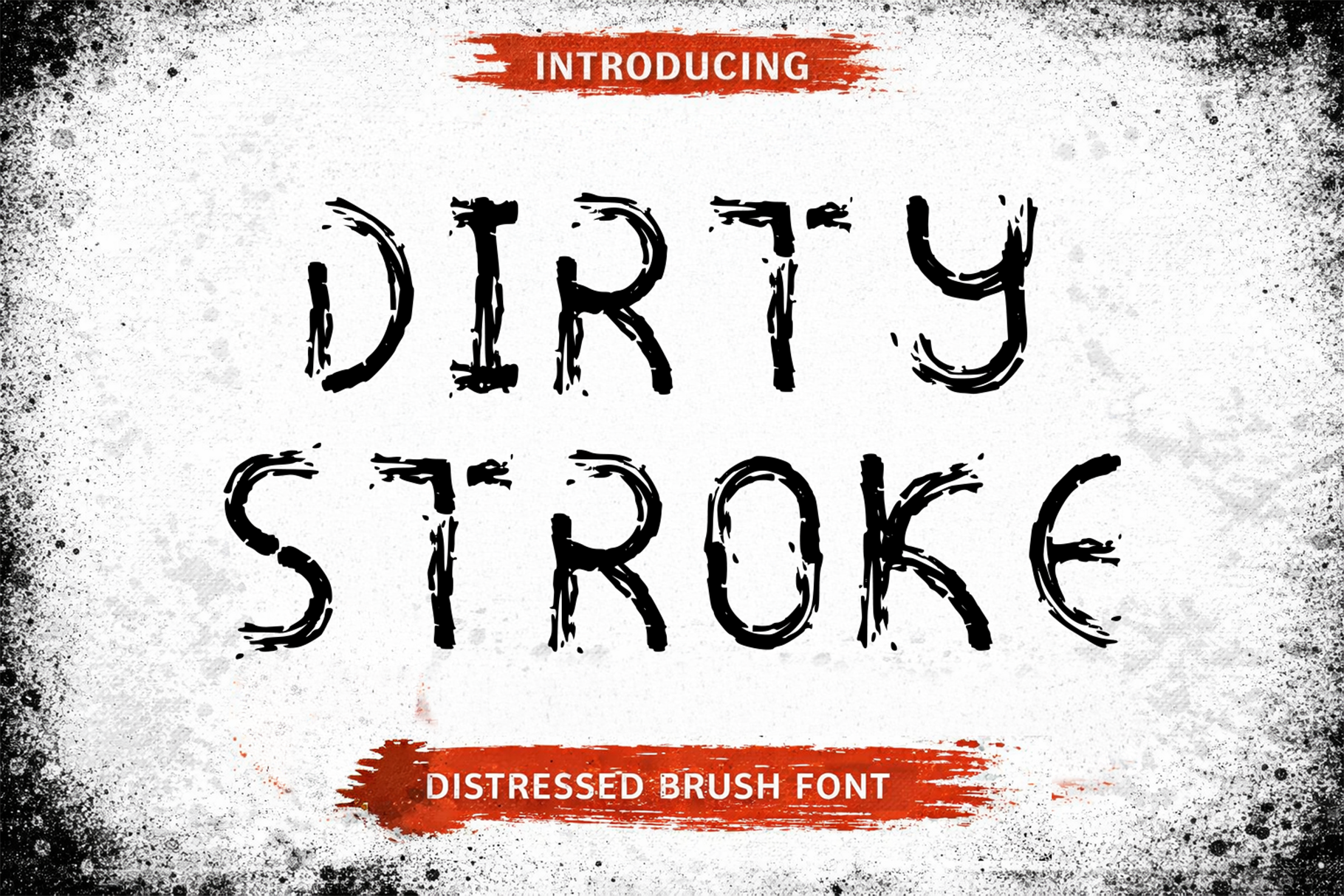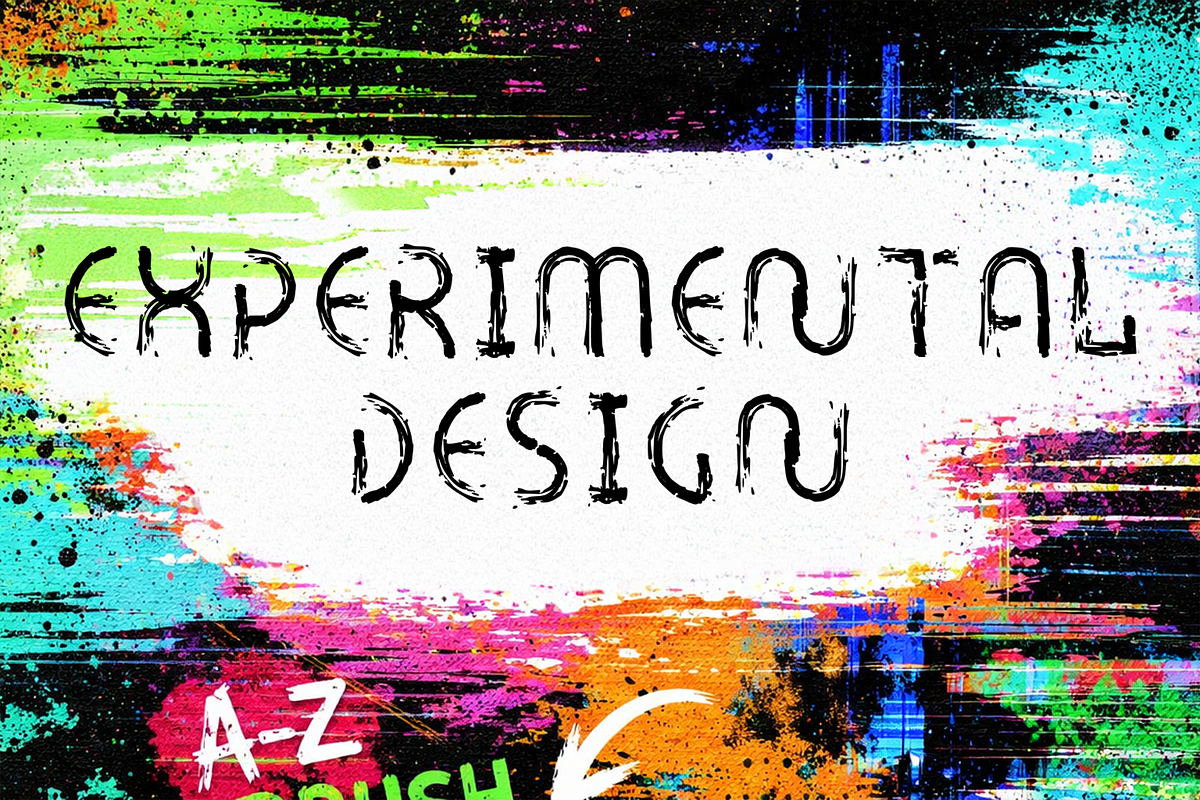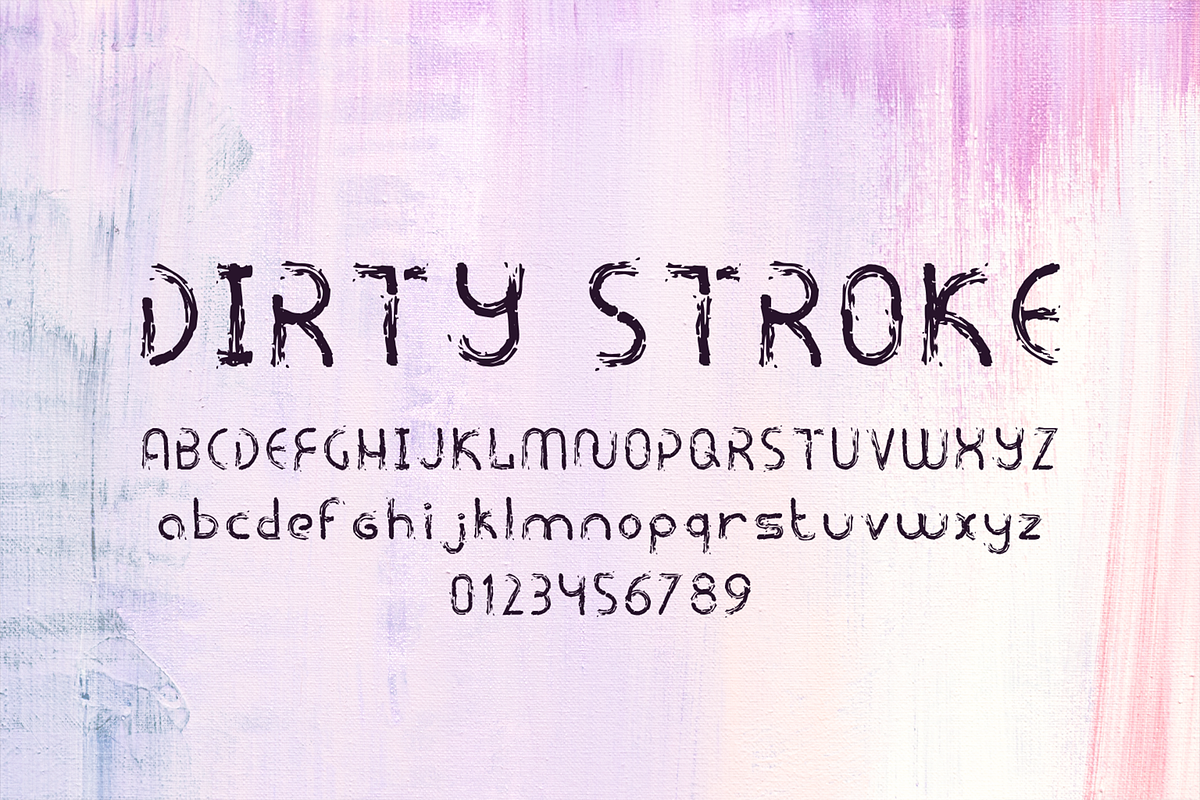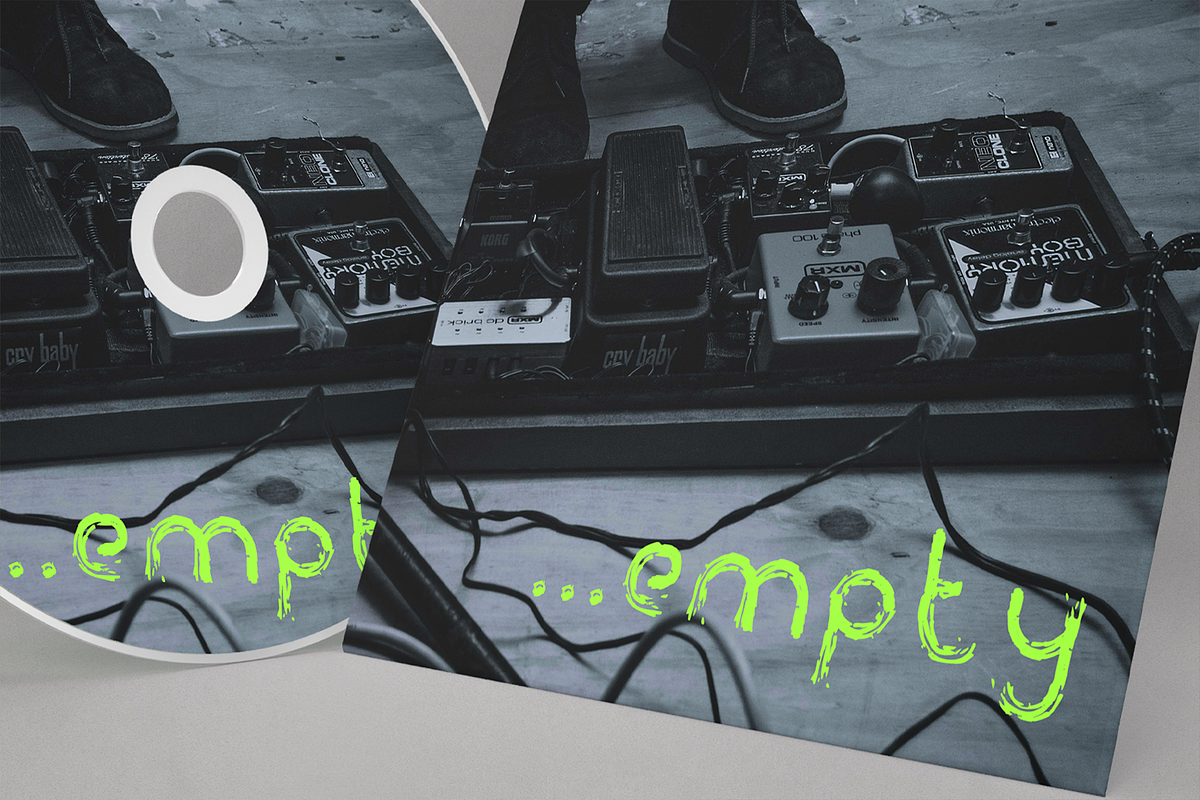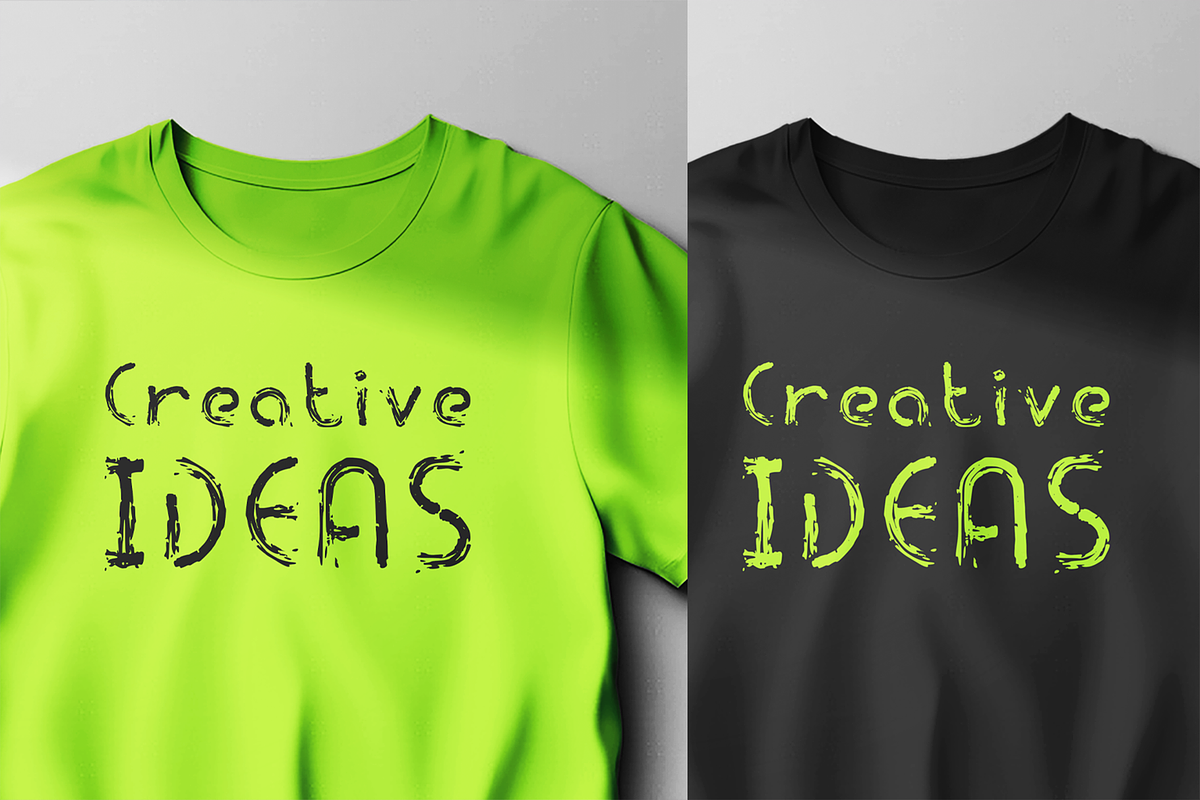
Dirty Stroke / Distressed Typeface
Dirty Stroke is a handcrafted grunge display typeface inspired by rough brush strokes, worn textures, and distressed ink. Its intentionally imperfect letterforms create a raw, expressive, and rebellious aesthetic that brings character to every composition. Ideal for posters, album covers, horror themes, street art, branding, packaging, and any design that demands a bold, authentic visual presence.